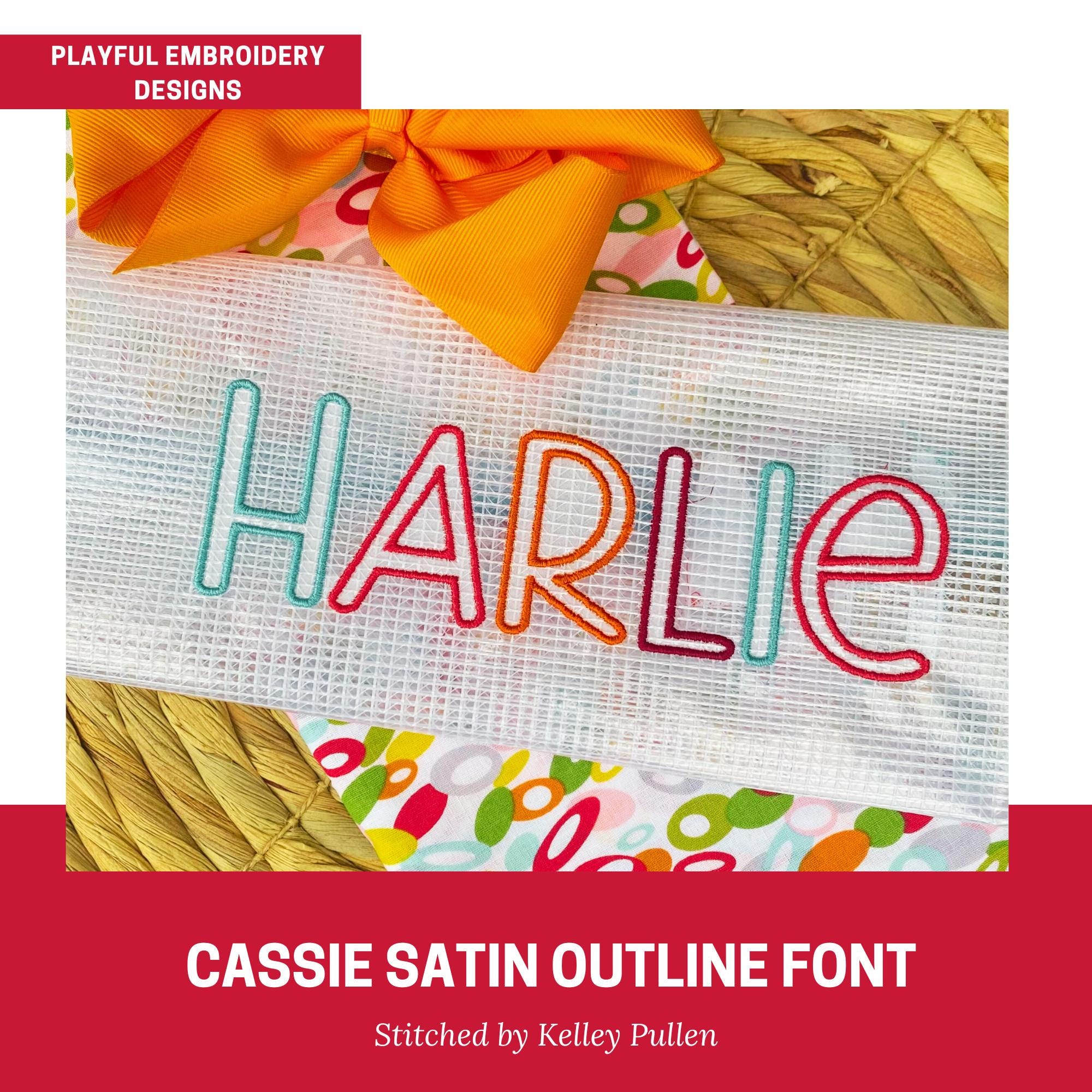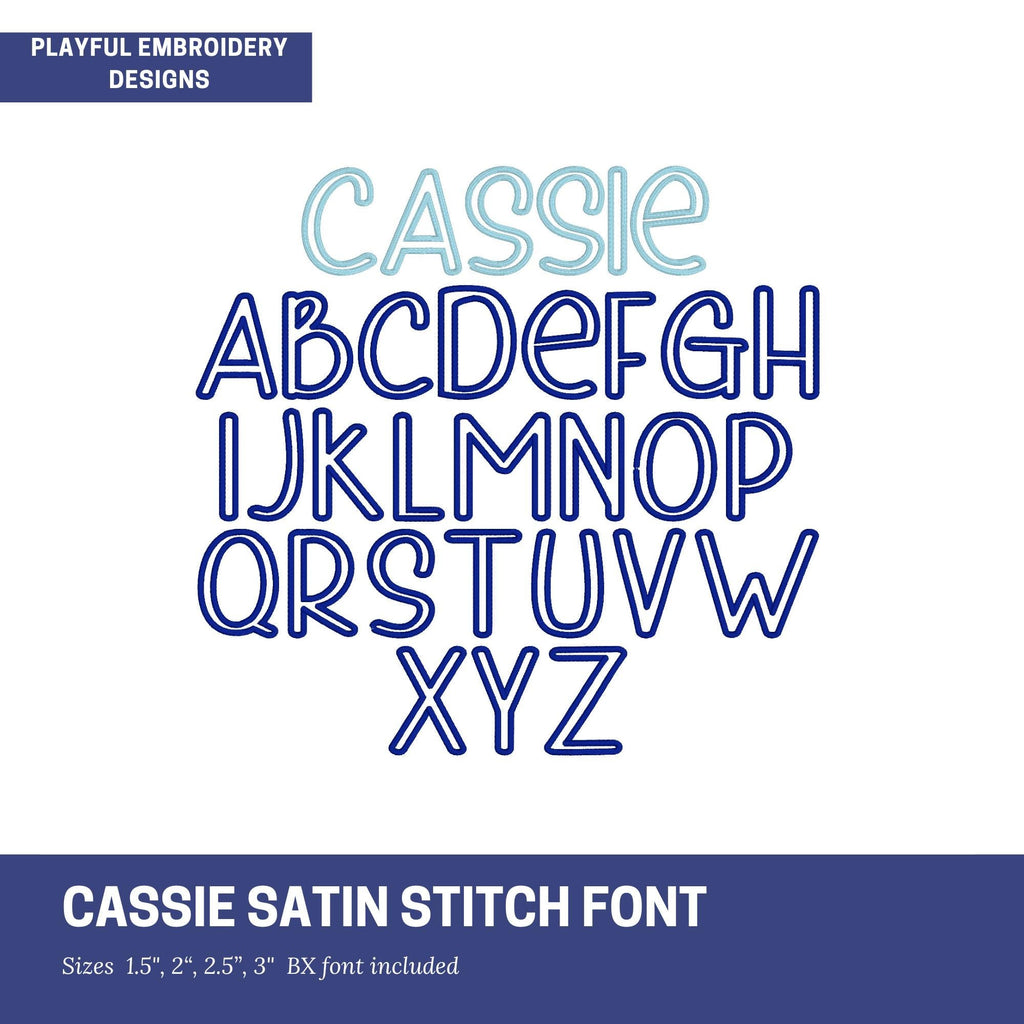
Cassie Satin Stitch Outline Font Design, Satin Stitch Machine Embroidery Font, 1.5", 2", 2.5", 3" font size, BX Font, Type Font, Print Font
Cassie satin stitch outline font design for machine embroidery. A simple font perfect for kids or boys.